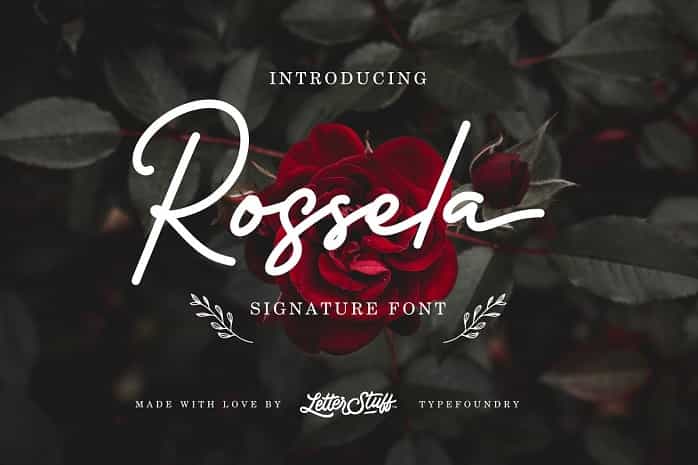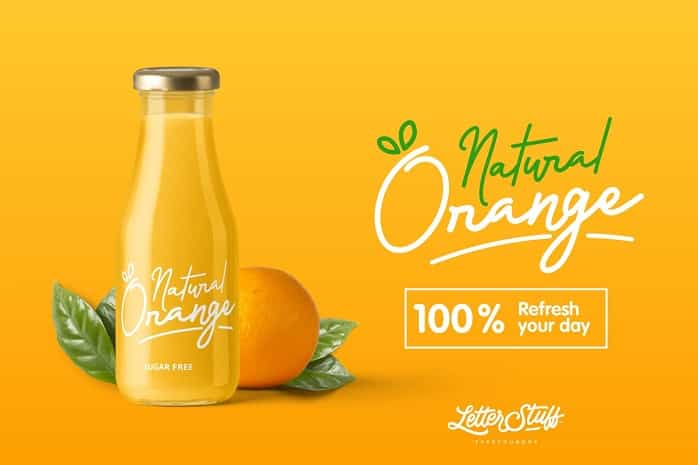
Discover Rossela Signature Font, part of the Brush Handwritten collection—a versatile and unique font perfect for adding a personal touch to your projects. Download it for free and enjoy crafting designs with style, from invitations to social media posts. This font is available exclusively for personal use, giving you the freedom to create without limits. Unlock your creativity with Rossela Signature Font today!
Introducing Rossela Font. It was created and made public by LetterStuff Typefoundry. Risela is a new signature font that has the beauty and natural handwritten curve. Amazing for your design projects like poster, personal logo, invitation and so on